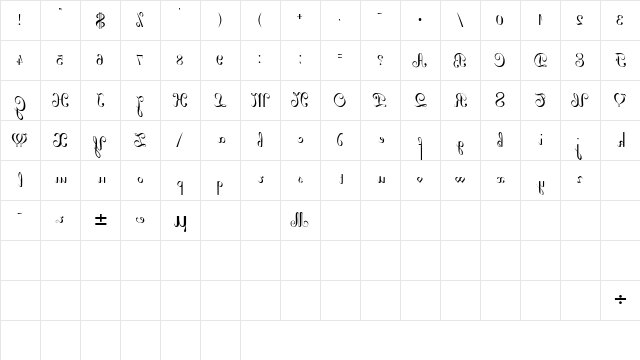
ArabescoScriptSSK backwards Regular
Design Context for ArabescoScriptSSK backwards
ArabescoScriptSSK backwards flows with the natural rhythm of handwritten lettering, making it ideal for designs that call for warmth and personal expression.
Font Pairing: Combine ArabescoScriptSSK backwards with a simple geometric sans for maximum contrast - the tension between flowing curves and clean structure is a classic typographic pairing.
Pro Tip: Use ArabescoScriptSSK backwards for short runs of text - names, titles, or taglines. Extended body copy in script faces tires the eye quickly.